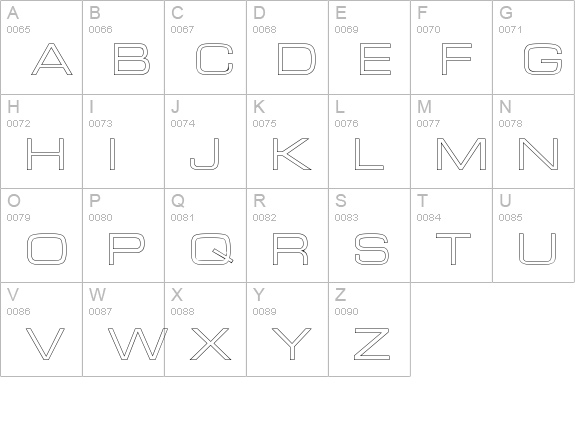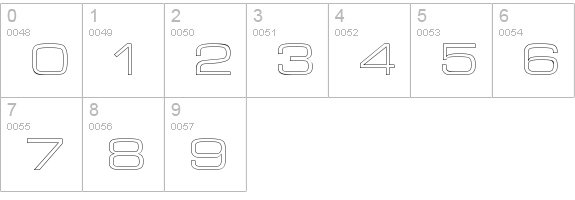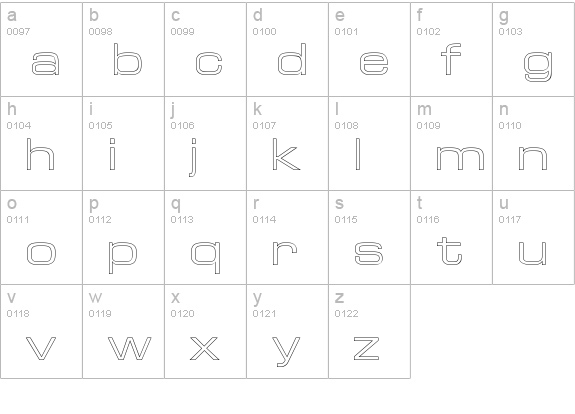
EuroTechnicExtOutline is a sleek and modern font that exudes sophistication and elegance. With its clean lines and futuristic appearance, this font is perfect for giving your designs a contemporary edge. The outline style adds a unique touch, making it stand out from other fonts. The best part? EuroTechnicExtOutline is available for free download at FontsMarket.com. Whether you're working on a branding project, website design, or any other creative endeavor, this font is sure to elevate your work to the next level. Don't miss out on the opportunity to enhance your designs with this stunning and versatile typeface. Download EuroTechnicExtOutline today and start creating with style and flair.